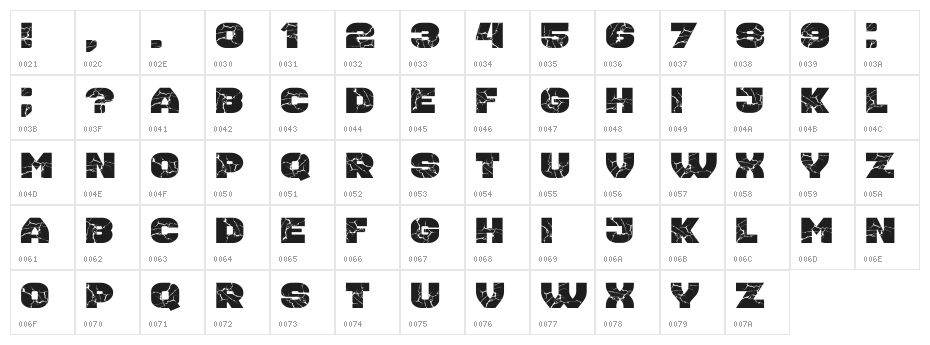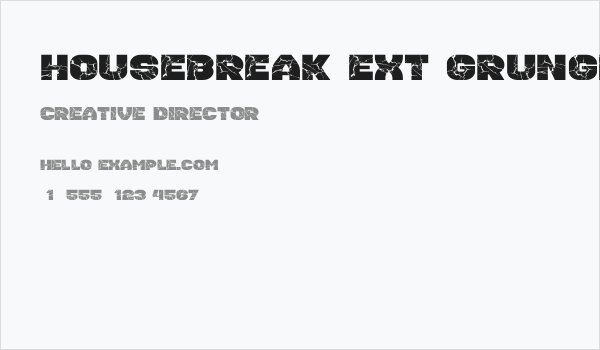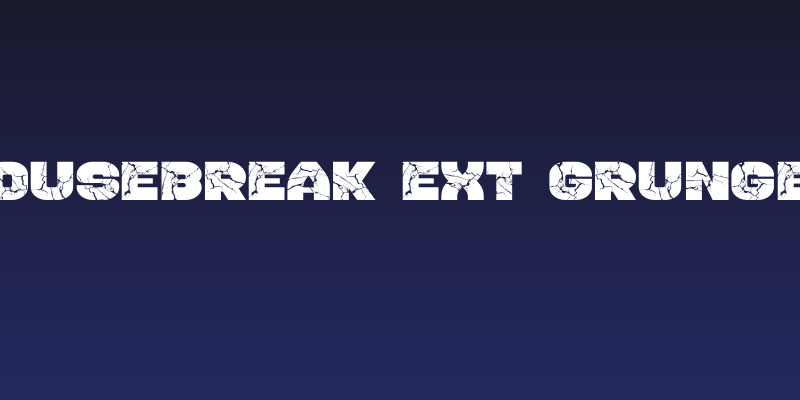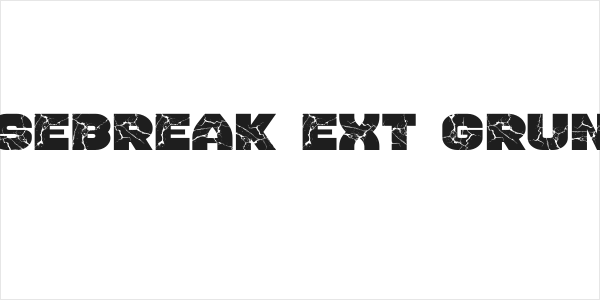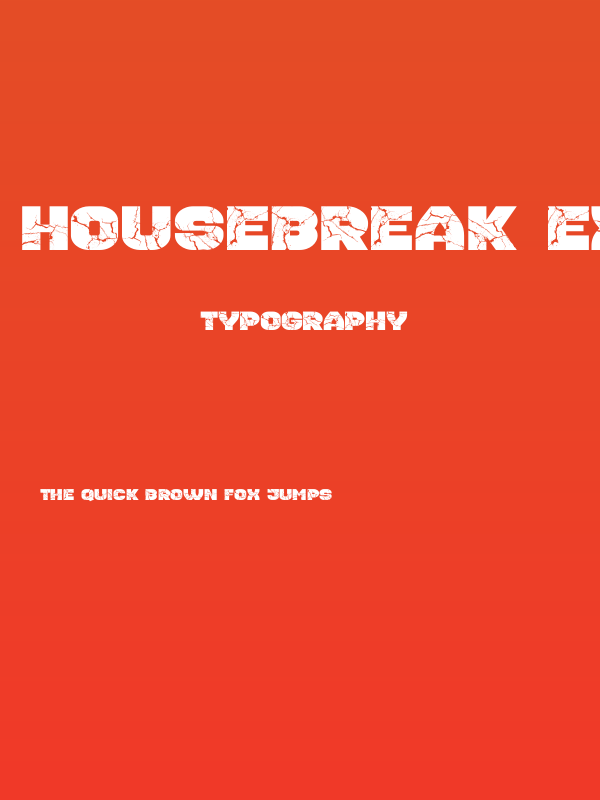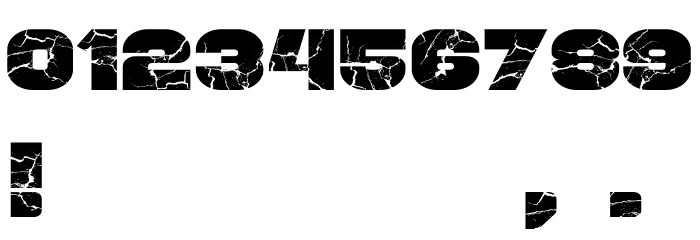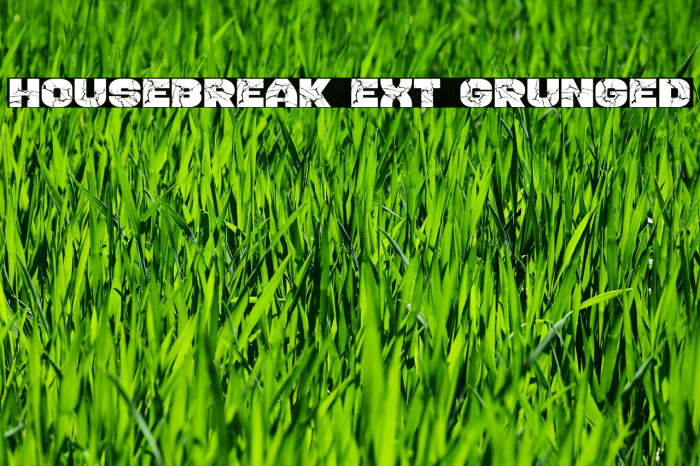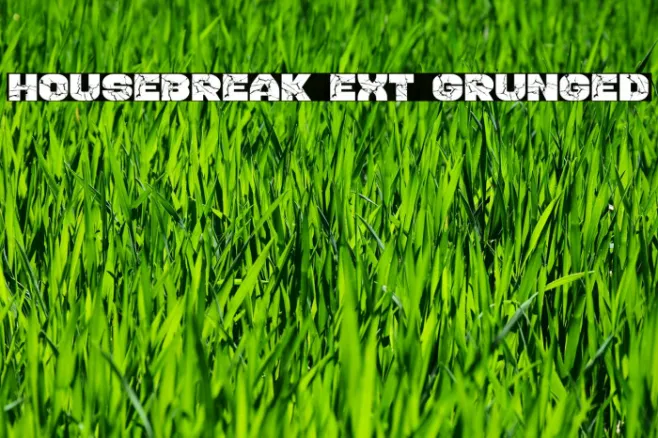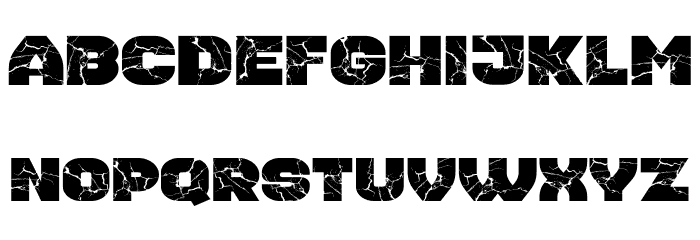
Housebreak Ext Grunged Font
Housebreak Ext Grunged Description
This font features a bold, distressed style with a grunge texture that gives it a rugged, worn appearance. The characters are blocky and robust, with a cracked surface effect that adds a sense of depth and texture. The uppercase letters are uniform in height, while the numbers and special characters maintain the same distressed aesthetic. This font is designed to stand out, making it ideal for projects that require a strong visual impact. The rough edges and irregularities in the design contribute to its unique and edgy look.
| Overall Style | Grunge, Urban, Edgy |
| Proposed Projects | Ideal for album covers, posters, streetwear branding, and any project needing a gritty, urban aesthetic. |